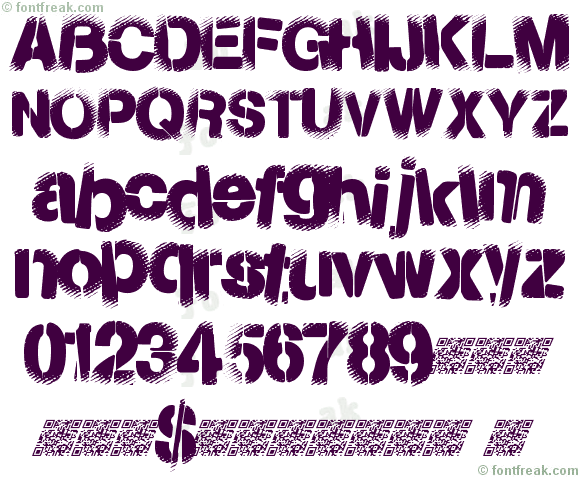
ToxicPowers
ToxicPowers by XEROGRAPHER FONTS is a striking display font that captures a bold, edgy aesthetic perfect for modern design needs. This freeware font features a unique blend of irregular shapes and dynamic strokes, giving it a raw, energetic feel. The visual characteristics include a heavy stroke weight with expressive, uneven lines that create a sense of movement and excitement. The contrast between thick and thin elements enhances its dramatic impact, making it an ideal choice for attention-grabbing designs. The spacing is thoughtfully arranged to maintain readability while allowing for a playful interaction between letters.
ToxicPowers is particularly well-suited for a variety of creative applications. It shines in promotional materials for punk events, lending an authentic vibe to concert posters and flyers. Additionally, its distinctive look makes it an excellent choice for branding projects, especially for businesses in the music, fashion, or alternative lifestyle sectors. Restaurant menus seeking to convey a fun and unconventional atmosphere can benefit from its bold presence, while content creators looking to spice up social media graphics will find it an eye-catching option.
This font is tailored for graphic designers, small business owners, and content creators who wish to make a statement with their typography. Its unique style appeals to those wanting to push creative boundaries and stand out in a crowded marketplace.